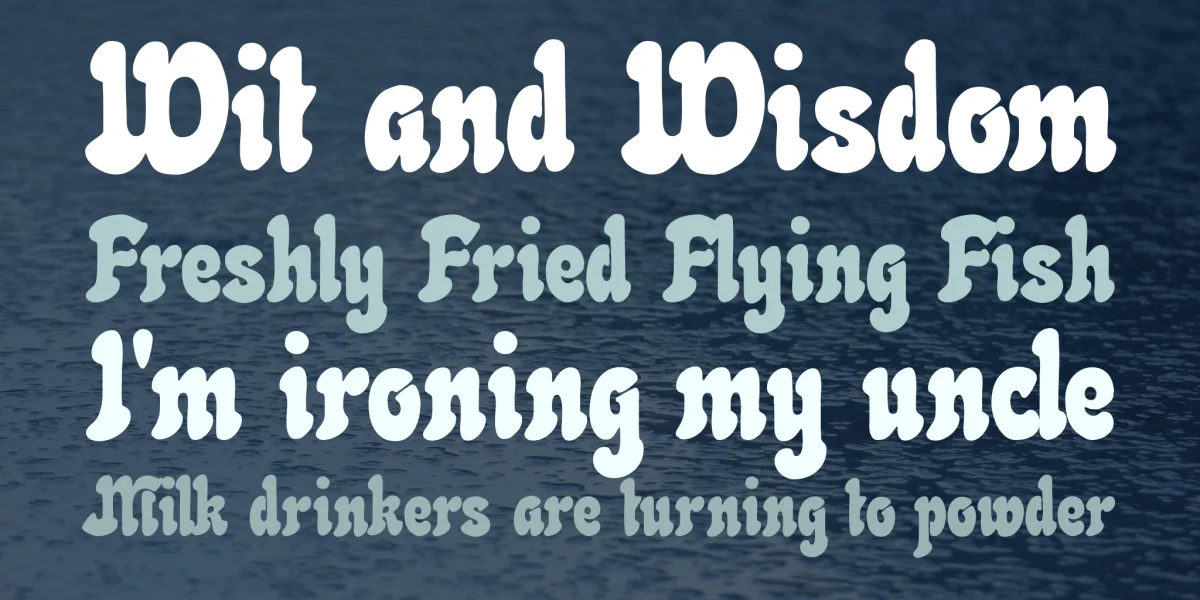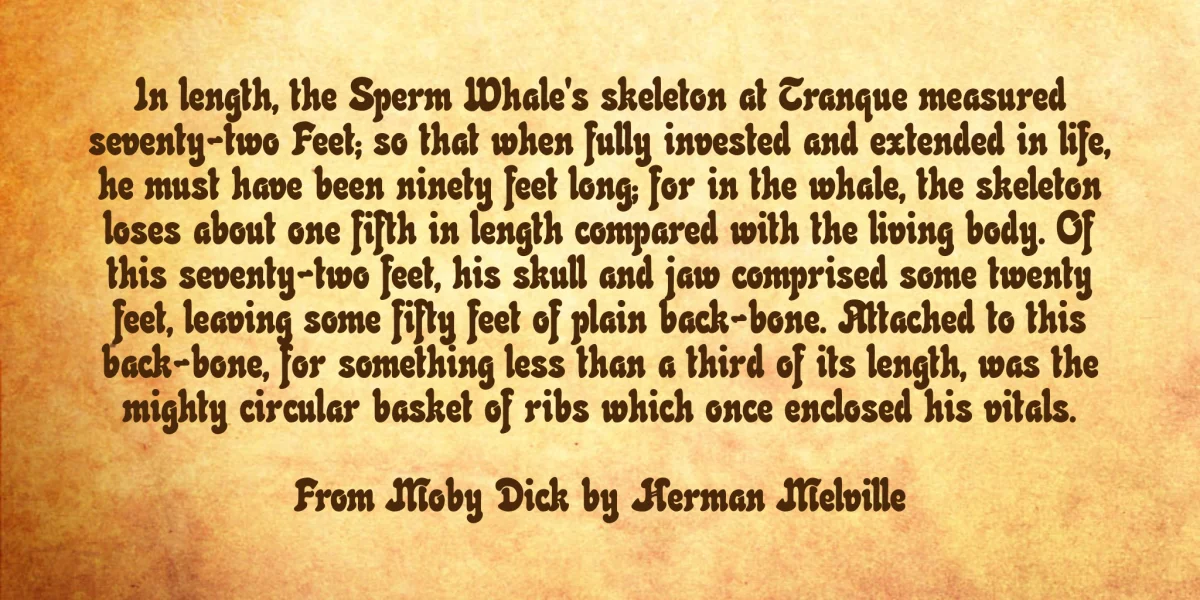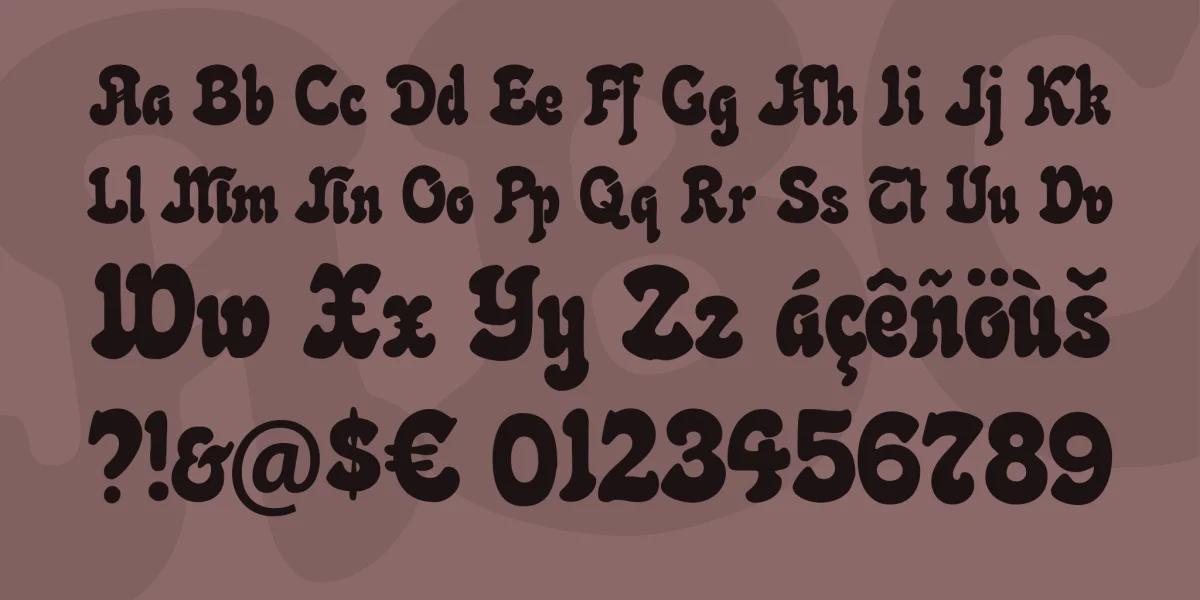
Translation of the original German description: According to the basic work of Seemann's "Handbook of Fonts" the "Neptune" font appeared in 1900 in the consortium of type foundry and mechanical engineering, Offenbach am Main. The lettering artist is unknown. So I made myself from making this publication after 100 years is available again. Should I at the glyphs that I would have to re-invent this, have made a mistake, I ask this either to excuse me or (better yet) to correct me.